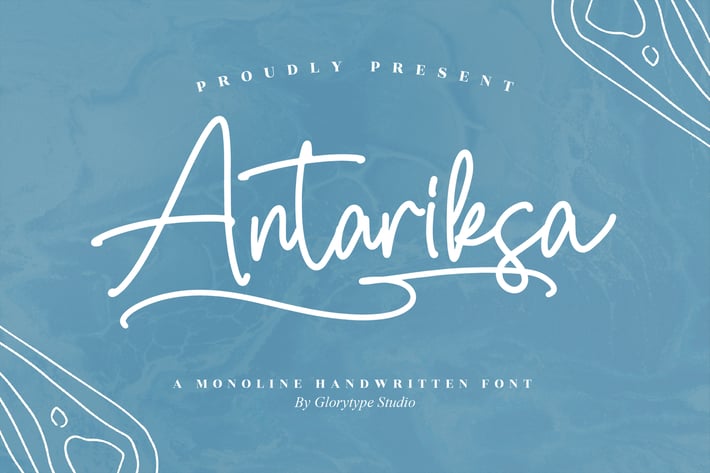
Antariksa Monoline Handwritten Font
Antariksa is a smooth and airy monoline handwritten font that brings a soft, personal, and stylish touch to any project. Designed with delicate strokes and fluid curves, this typeface captures the charm of natural handwriting while maintaining a clean and modern aesthetic. Its gentle flow makes it perfect for designs that need elegance, warmth, and authenticity.
Soft monoline handwritten style
Clean and flowing stroke structure
Natural handwritten feel with modern refinement
Branding & logo design
Wedding invitations & stationery
Social media quotes and aesthetic posts
Product packaging
Photography watermark signatures
Journaling & lifestyle content
Thank-you cards & greeting cards
Elegant personal projects
Gentle, clean, and beautifully handwritten — Antariksa adds a calm and graceful touch to your visual storytelling.*